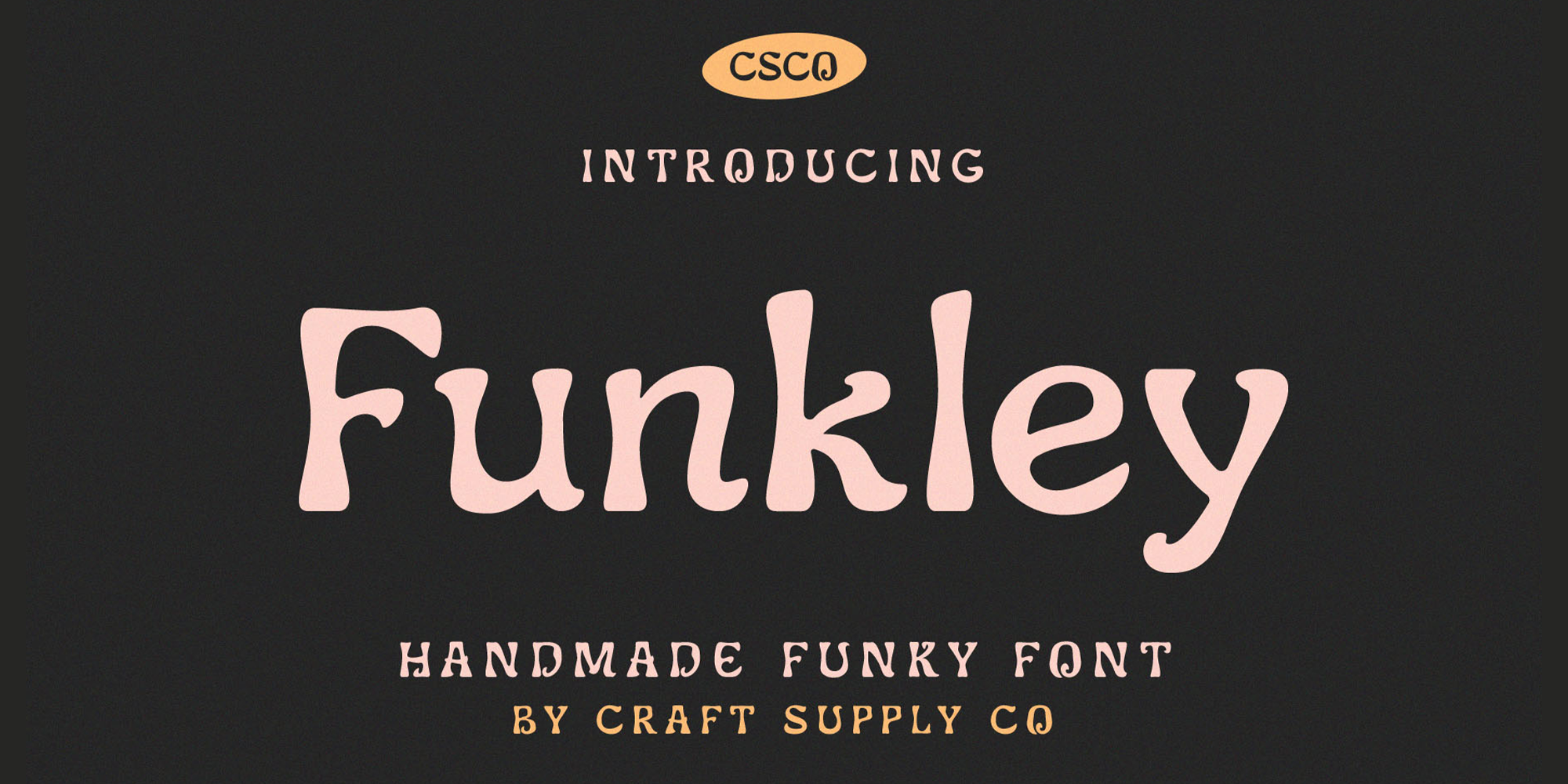
Funkley Font is perfect for music festival posters, retro-themed events, vinyl record covers, vintage clothing brands, groovy party invitations, funky restaurant menus, disco-inspired designs, creative agency branding, nostalgic marketing campaigns, and vibrant social media graphics. This rhythmic typeface excels in projects that require energy, personality, and authentic retro charm.
What makes Funkley Font exciting is its infectious ability to channel the groovy spirit of funk music through letterforms that seem to dance and bounce with natural rhythm. The font features playful curves, dynamic baseline variations, and organic character spacing that create visual movement and musical flow. Its funky personality captures the essence of 70s culture while maintaining contemporary appeal, making it perfect for brands that want to communicate fun, authenticity, and irresistible groove.
Funkley Font comes in diverse font families including Regular, Bold, Light, Italic, Outline, and Groovy variants. Each family member maintains the distinctive funky character while offering different stylistic approaches and rhythmic intensities to accommodate various creative design needs and energetic branding requirements.
This premium retro typeface represents an outstanding choice for designers working in entertainment, lifestyle branding, and creative industries. Funkley Font Free Download provides exceptional value for event organizers, music producers, and creative agencies specializing in vibrant visual communication. The font's authentic funk appeal makes it particularly suitable for music promotion, retro collections, party planning, and brands targeting creative demographics.
Whether you're developing brand identity for music venues, creating promotional materials for funky events, or designing marketing content for vintage-inspired products, Funkley Font delivers the perfect combination of groove and authenticity that makes every project irresistibly funky and memorable.